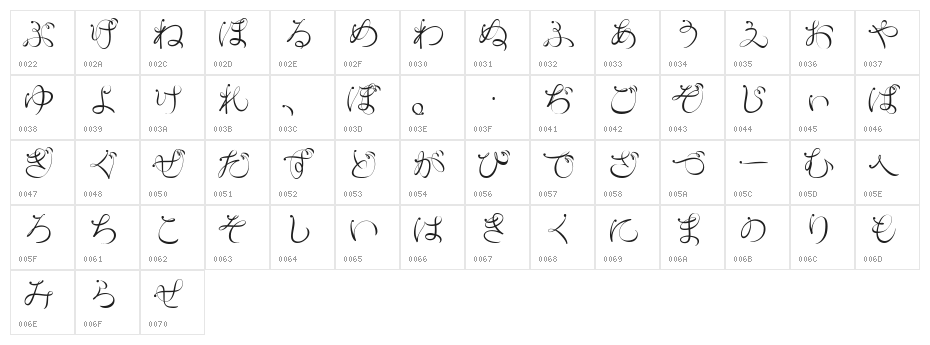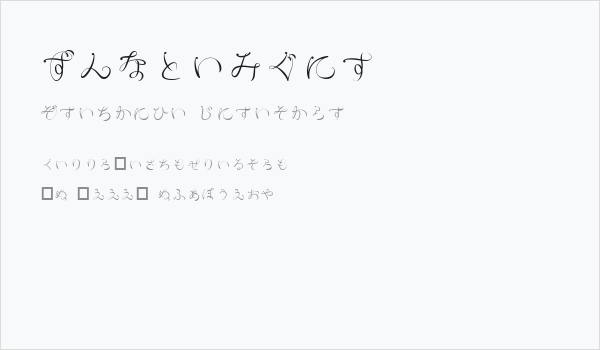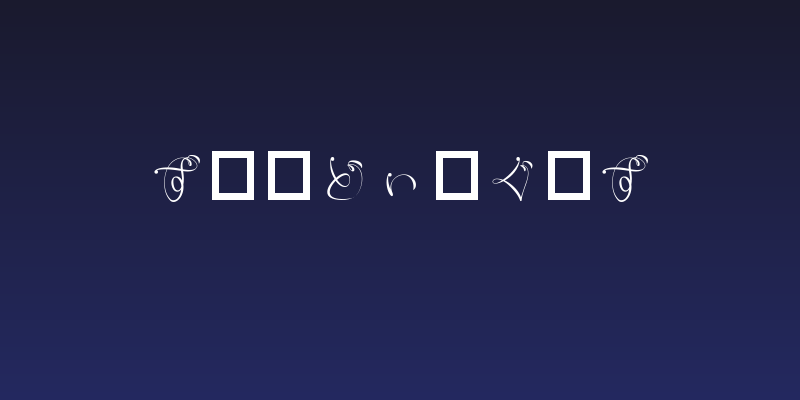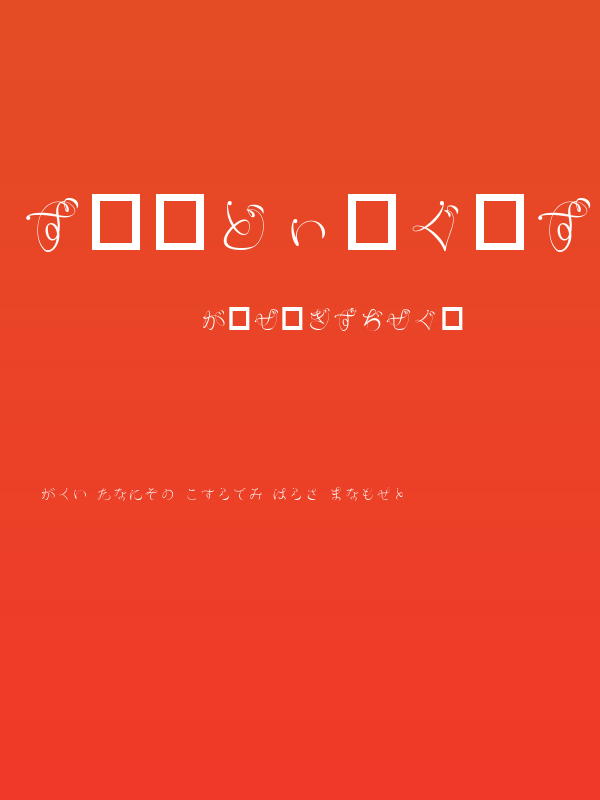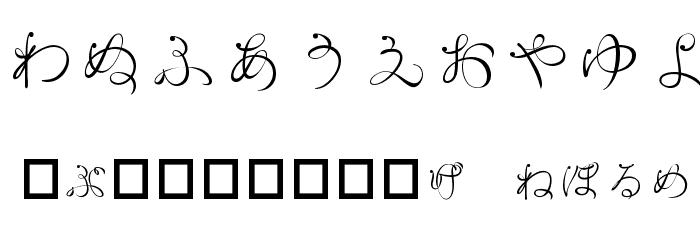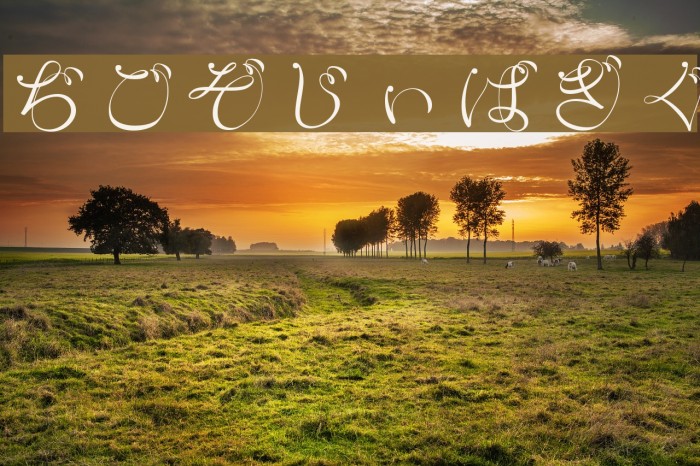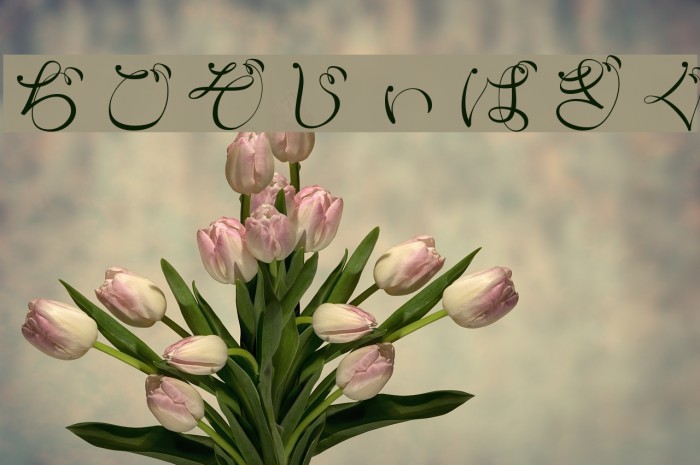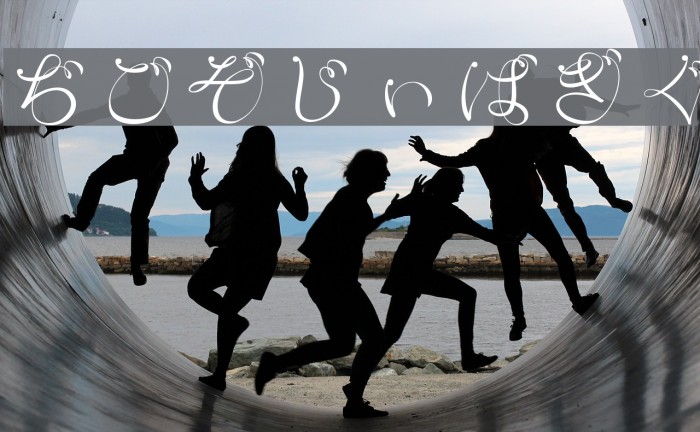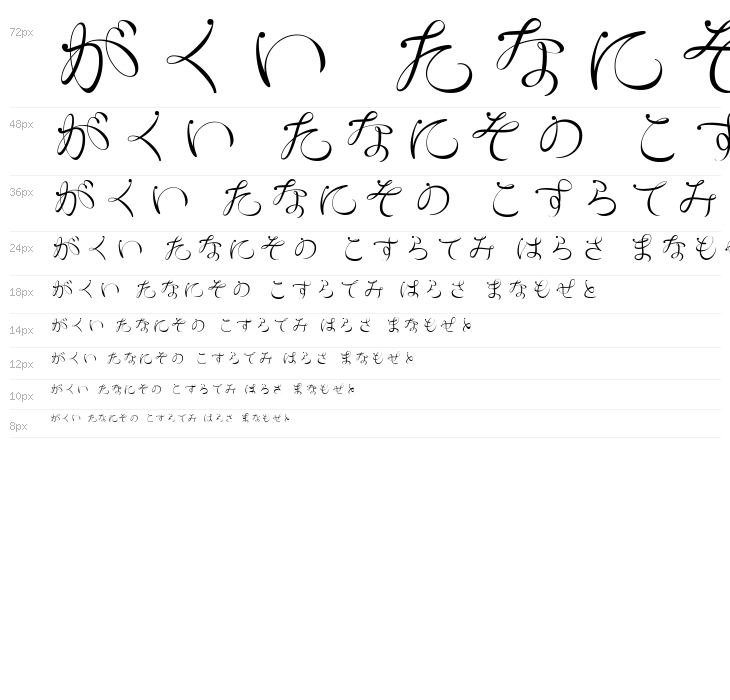
RyusenHir Font
RyusenHir Description
This font features a highly decorative and ornate style, characterized by intricate swirls and flourishes that extend from the main strokes of each character. The design is reminiscent of calligraphic handwriting, with a whimsical and artistic flair that adds a sense of elegance and sophistication. The characters are well-defined, with a consistent flow that maintains readability despite the elaborate embellishments. The font's unique style makes it stand out, offering a blend of traditional calligraphy with a modern twist. The overall appearance is both graceful and dynamic, making it suitable for creative and expressive design projects.
| Use Case | Logos, Invitations, Artistic designs |
| Proposed Projects | Ideal for wedding invitations, greeting cards, artistic posters, and branding that requires a touch of elegance and creativity. |